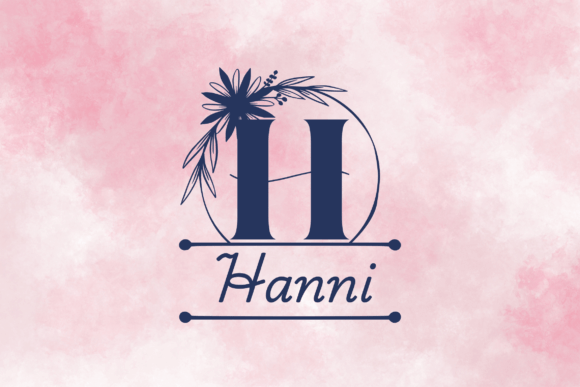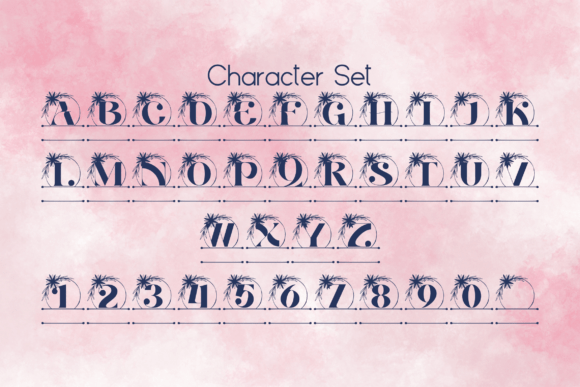
Aurora Bloom Line Monogram Font: Elevate Your Designs with Elegance
In the realm of design, a monogram font can make all the difference in creating a lasting impression. If you’re a designer or crafter looking to add a touch of sophistication to your work, look no further than the Aurora Bloom Line Monogram Font. This exquisite typeface is crafted to cast an enchanting aura on your monograms, logos, and personalized branding ventures, setting you apart from the rest.
The Essence of Elegance
Aurora Bloom Line Monogram Font is more than just a typeface – it’s a statement of elegance. Its intricately refined letterforms and delicate detailing make it a hallmark of sophistication. Whether you’re working on wedding invitations, luxury branding, stationery, or custom crafts, this font is sure to elevate your designs to new heights. The level of refinement and attention to detail in Aurora Bloom Line Monogram Font is unparalleled, making it the perfect choice for designers and crafters who strive for perfection.
Unleash Your Creativity
With Aurora Bloom Line Monogram Font, the possibilities are endless. Imagine creating wedding invitations that exude grandeur, luxury branding that resonates with opulence, stationery that captures timeless beauty, or custom crafts that inspire awe. Each design tells a unique story with this typeface, allowing you to express your creativity and bring your vision to life.
What Sets Aurora Bloom Line Monogram Font Apart
So, what makes Aurora Bloom Line Monogram Font so special? Here are just a few features that set it apart:
- Intricate detailing: The font’s delicate detailing adds a level of sophistication and elegance to your designs.
- Refined letterforms: The carefully crafted letterforms ensure that your monograms and logos look refined and polished.
- Unique character: Aurora Bloom Line Monogram Font has a distinct personality that shines through in every design.
- Versatility: This typeface is perfect for a wide range of design projects, from wedding invitations to luxury branding.
Why Choose Aurora Bloom Line Monogram Font?
If you’re looking for a typeface that will add a hint of charisma and a sprinkle of distinction to your project, Aurora Bloom Line Monogram Font is the perfect choice. Here are just a few reasons why:
- Elegance: This font embodies elegance and sophistication, making it perfect for designers and crafters who want to create high-end designs.
- Uniqueness: Aurora Bloom Line Monogram Font is as unique as you are, allowing you to stand out from the crowd.
- Quality: The font is crafted with attention to detail and a focus on quality, ensuring that your designs look professional and polished.
Tips for Using Aurora Bloom Line Monogram Font
To get the most out of Aurora Bloom Line Monogram Font, here are a few tips:
- Use it sparingly: This font is perfect for adding a touch of elegance to your designs, but use it sparingly to avoid overwhelming the design.
- Experiment with colors: Try pairing Aurora Bloom Line Monogram Font with different colors to create a unique look that reflects your brand or design style.
- Mix and match: Don’t be afraid to mix and match Aurora Bloom Line Monogram Font with other typefaces to create a unique look.
In conclusion, Aurora Bloom Line Monogram Font is a typeface that is sure to elevate your designs to new heights. With its intricate detailing, refined letterforms, and unique character, this font is perfect for designers and crafters who want to add a touch of elegance and sophistication to their work. Whether you’re working on wedding invitations, luxury branding, stationery, or custom crafts, Aurora Bloom Line Monogram Font is the perfect choice. So why wait? Immerse your designs in the world of elegance with Aurora Bloom Line Monogram Font and watch your creations come to life.